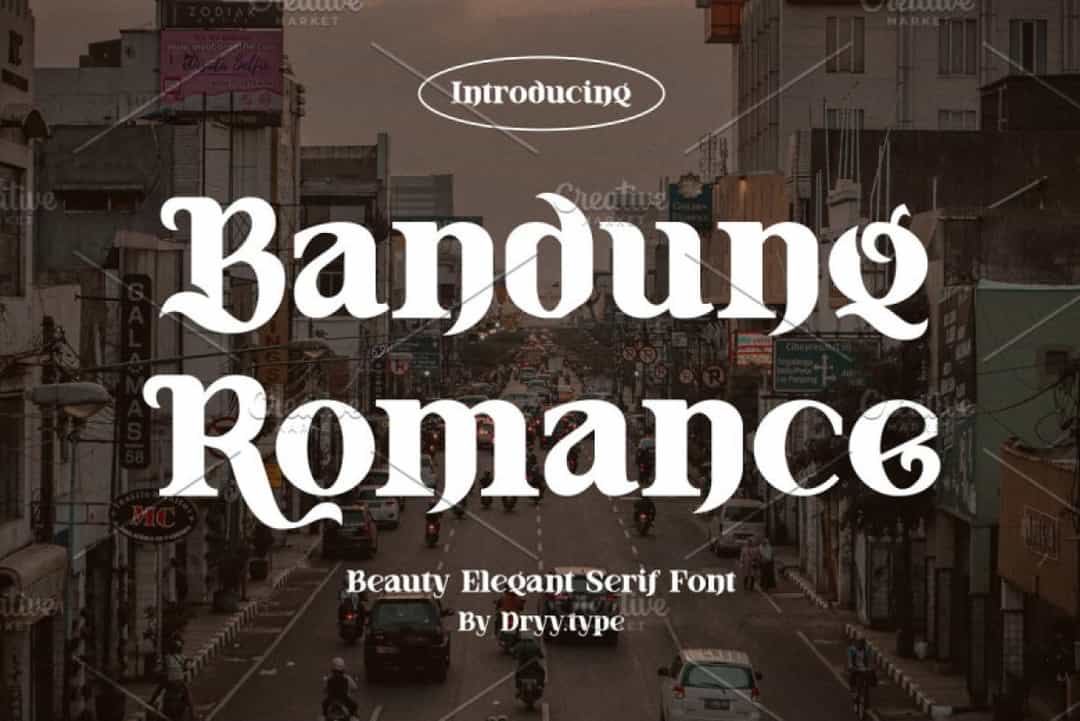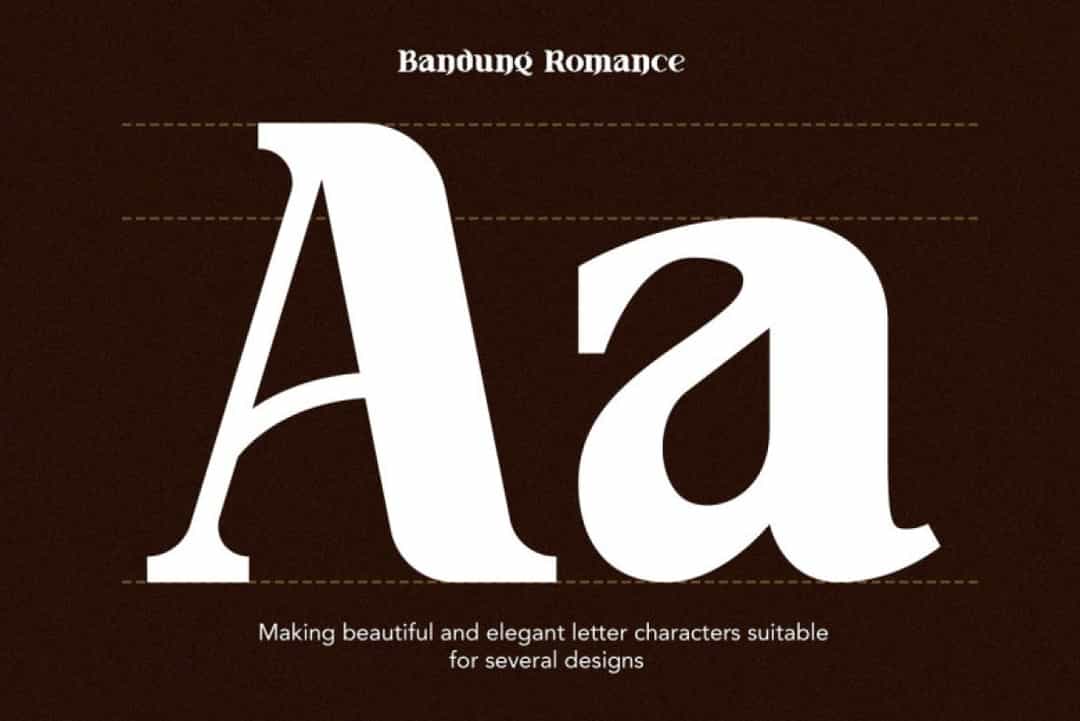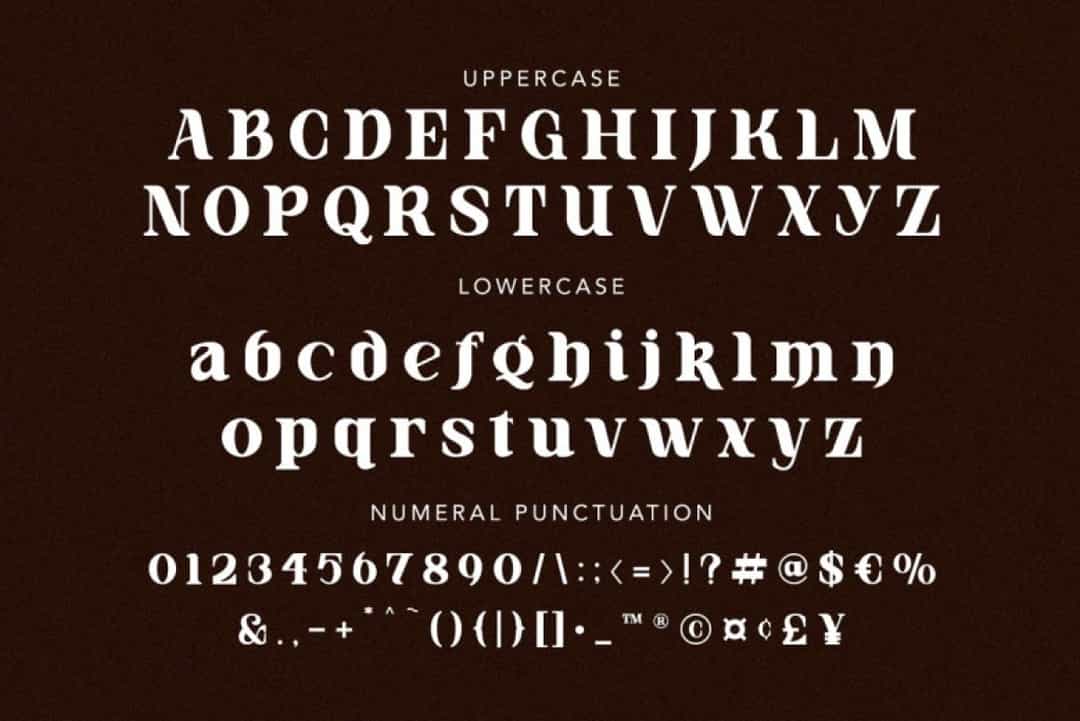
Bandung Romance is an elegant and gorgeous serif font inspired by one of Southeast Asia’s most beautiful cities and the romance that bloomed there. I designed it as an expressive yet versatile font to bring out its best features – and so that anyone can use this font with their most creative ideas to enhance them even further!